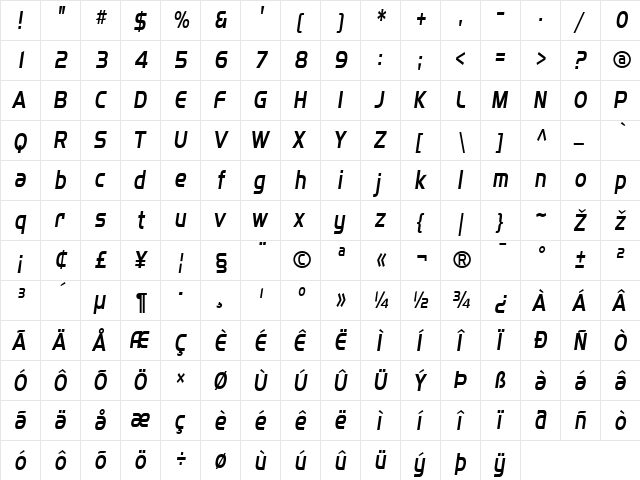
SF Fourche Condensed Italic
| Foundry | ShyFoundry |
| Designer | Derek Vogelpohl |
Design Context for SF Fourche Condensed Typeface
SF Fourche Condensed is a composed and adaptable typeface that performs quietly and consistently across a wide range of design contexts. Its italic angle brings a sense of urgency and motion to the letterforms. The condensed width makes it efficient for tight spaces without sacrificing legibility.
Pro Tip: Use SF Fourche Condensed for emphasis, pull quotes, and subheadings where its slanted energy can add rhythm to the layout.